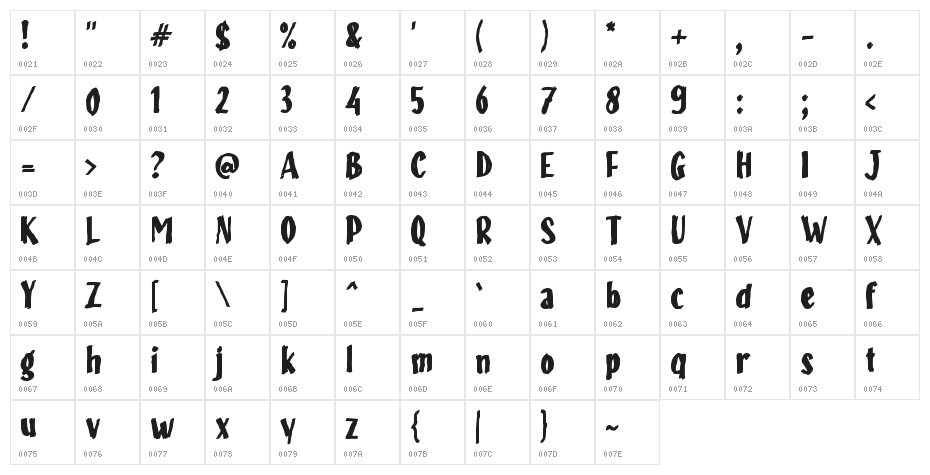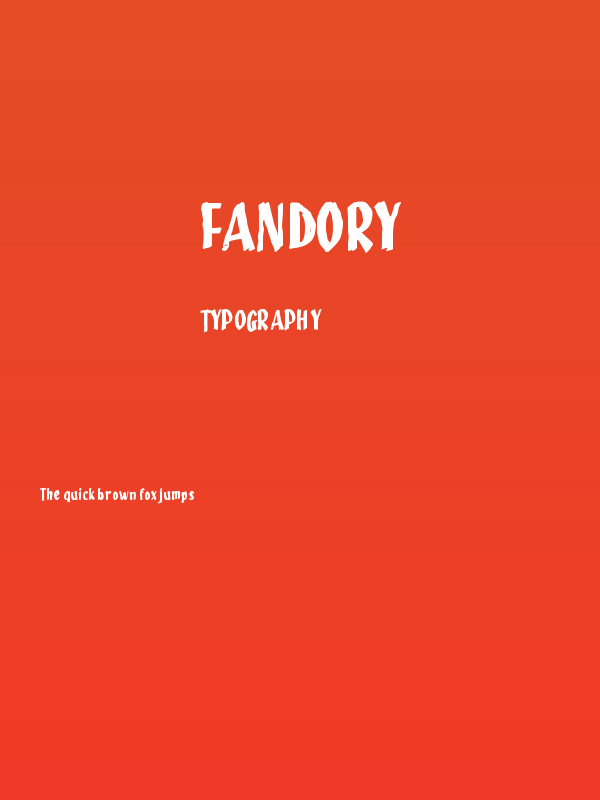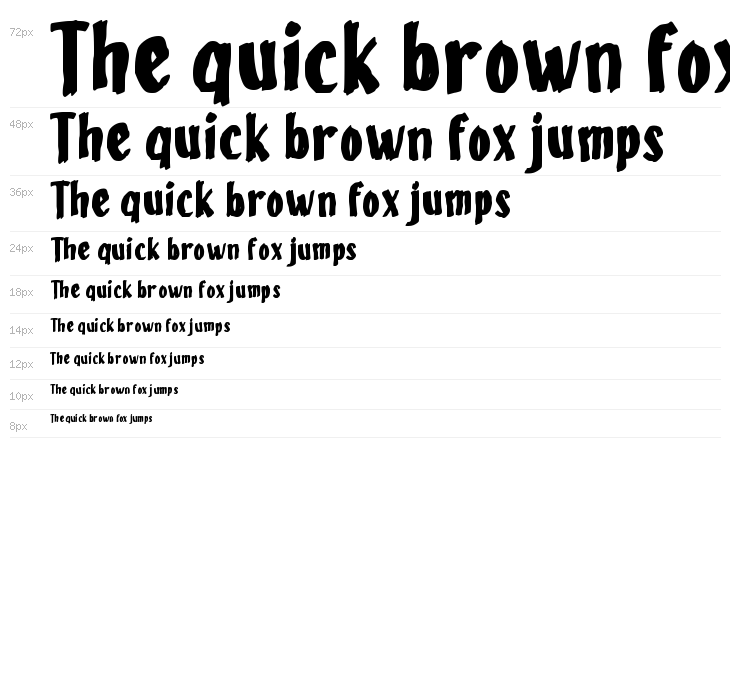
Fandory Font
Fandory Description
This font features a bold and expressive style with a hand-painted appearance. The letters are uneven and have a dynamic, energetic feel, reminiscent of brush strokes. The uppercase and lowercase characters maintain a consistent weight, adding to the boldness of the design. The numbers and special characters follow the same aesthetic, ensuring a cohesive look across all elements. This font's unique style makes it stand out, offering a playful yet assertive presence.
| Proposed Projects | Ideal for projects that require a bold statement, such as posters, branding, packaging, and artistic designs. |